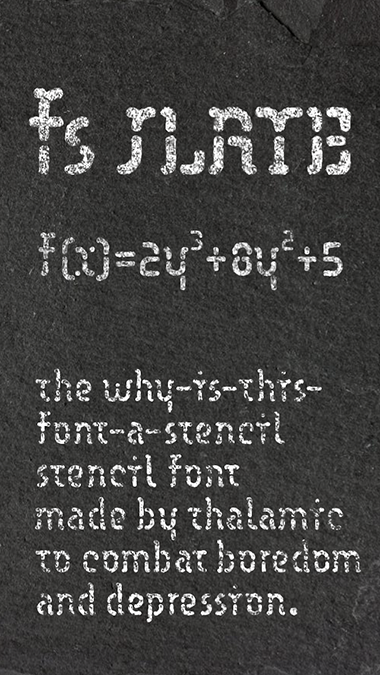
The delightous level of your incredible creativity proves you lie to yourself if you think even one minute you're depressive. I don't think this is a therapy, but the proof you're much more healthy than many others who don't see how blank and genuine depressives they are !
Very cool and interesting font! My 10 2 U.
yummy
Yet another of your 'deceptively simple' designs that captures such a graceful balance. 10/10
Fat, soft serifs make thing livelier. Who knew!
I love all of your work
again, there is something geometric in it which i love a lot
bravo!